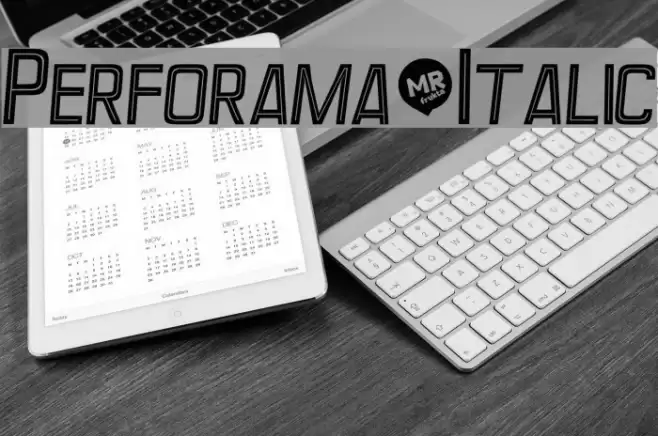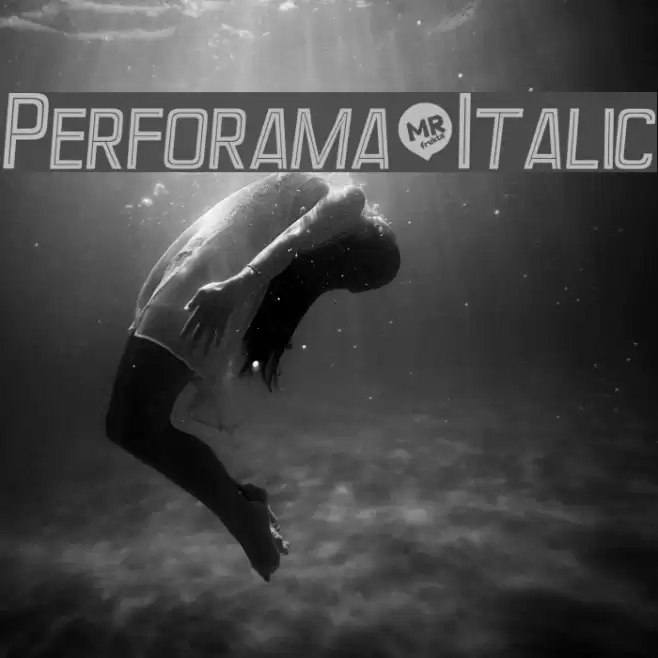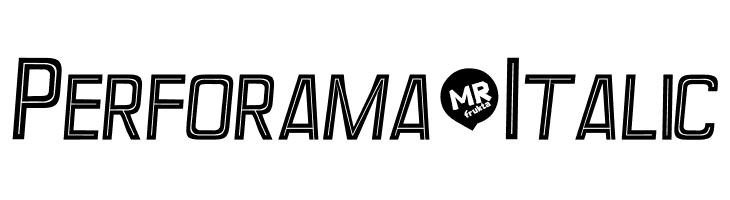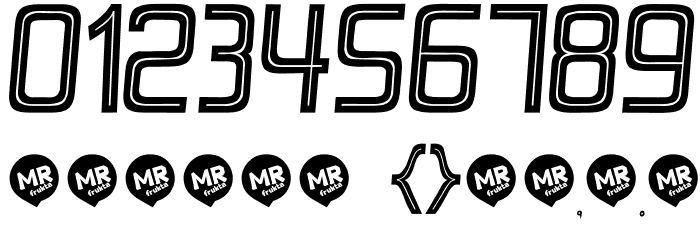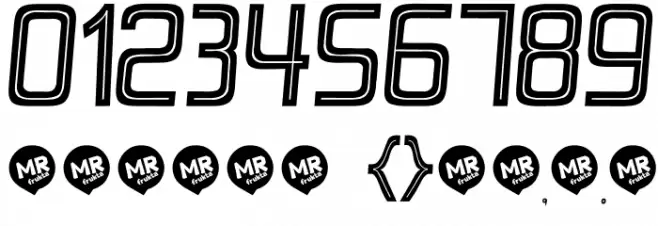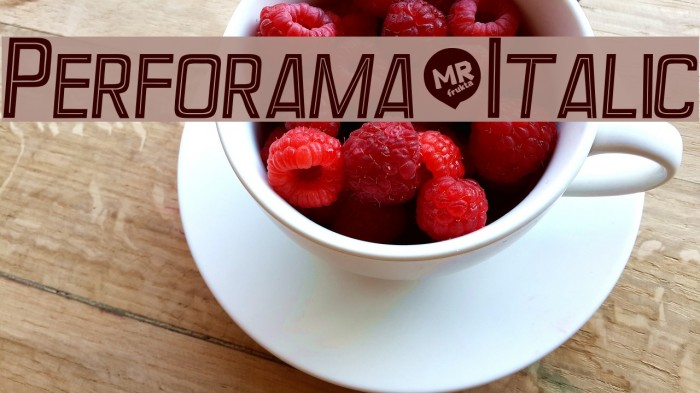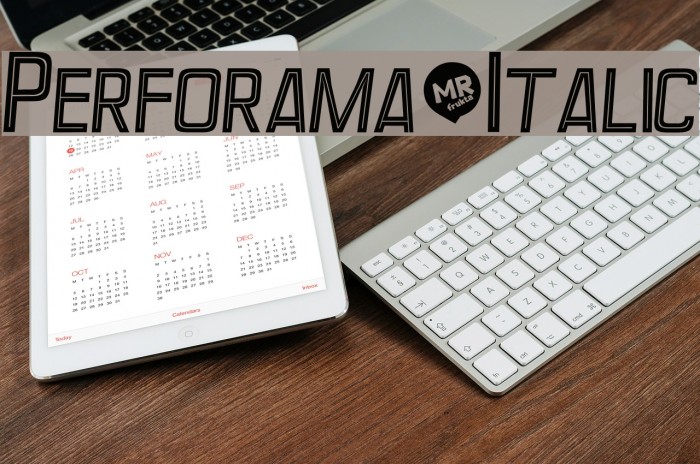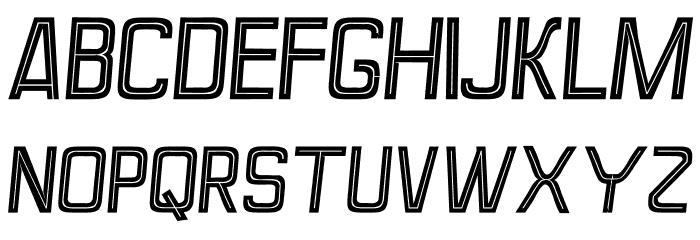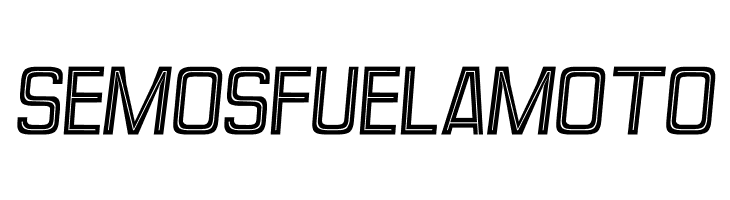
Perforama-Italic Font
Perforama-Italic Description
This font features a modern, geometric design with a distinct italic slant, giving it a dynamic and forward-moving appearance. The characters are outlined with a double-line effect, creating a sense of depth and dimension. The uppercase and lowercase letters maintain a consistent style, with sharp angles and clean lines that emphasize a futuristic aesthetic. The numerals are equally stylized, matching the angular and sleek look of the alphabet. This font is particularly eye-catching and would stand out in any design project that requires a bold and modern touch.
A modern, geometric italic font with a double-line effect and futuristic style from Uncategorized fonts.
- Proposed Projects: Ideal for branding, sports team logos, tech company advertisements, and futuristic-themed designs.